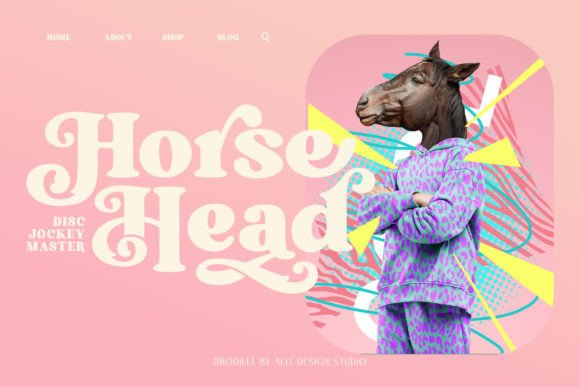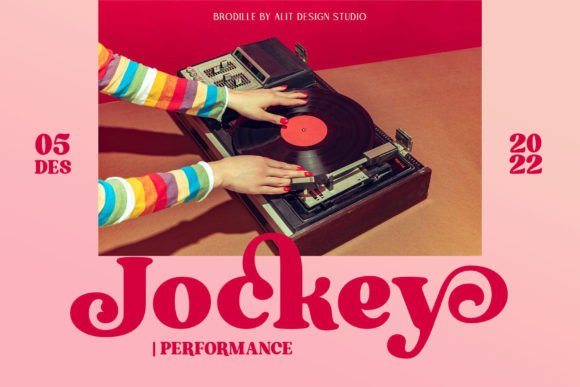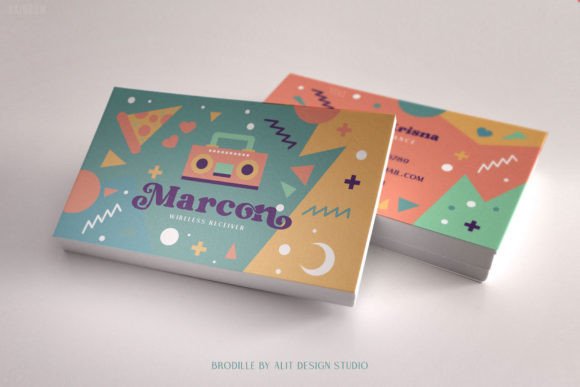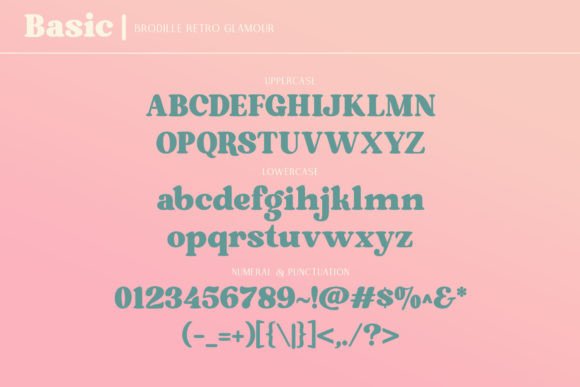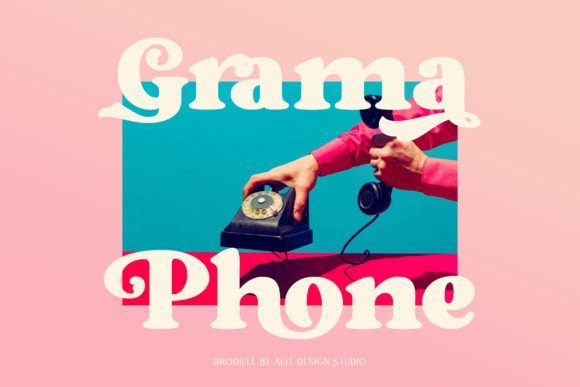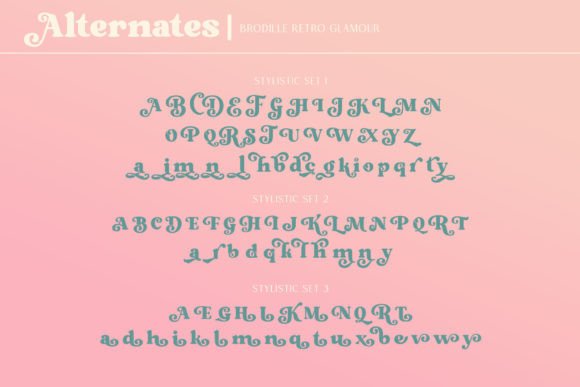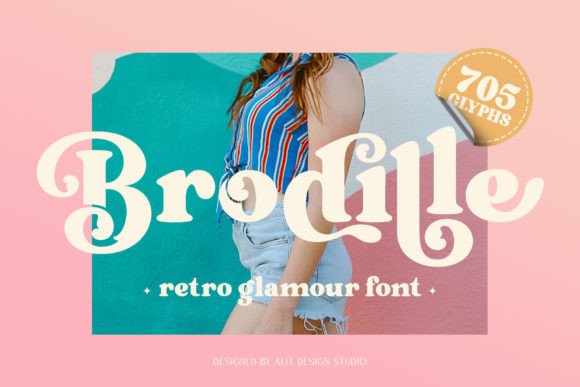
The Retro-Glam Brodille Font: A Designer’s New Best Friend
I still remember the design project that led me to discover the Brodille font. I was working on a branding project for a vintage-inspired boutique, and I was struggling to find the perfect font that would capture the essence of their retro-glam aesthetic. That’s when I stumbled upon Brodille, and it instantly became my go-to font for the project. In this article, I’ll share my experience with Brodille, its features, and how to make the most of it in your designs.
An Honest Review of Brodille
Brodille is a retro-glam display font that has won my heart with its stylish and trendy vibe. Here’s what I love about it:
- ✨ Incredibly stylish and trendy, with a special vintage-like appeal
- ✅ Highly legible, even at large sizes
- ✅ Extensive character set, including OpenType features and stylistic alternates
- ✅ Works beautifully for titles, headings, and short paragraphs
However, no font is perfect, and Brodille has a few quirks:
- 🤔 May not be the best choice for body text or long paragraphs, as it can be a bit too ornate
- ⚠️ Limited use of lowercase letters, which may not be ideal for certain design projects
The Story Behind Brodille
Brodille was designed by a team of typographers who wanted to create a font that would capture the essence of retro-glam. Inspired by vintage advertisements and fashion magazines, they crafted a font that’s both stylish and nostalgic. The name “Brodille” comes from the French word for “lace,” which reflects the font’s intricate and ornate details.
| Font Name | Brodille Font |
| Author | Alit Design |
| What is Brodille font? | Brodille is a retro-glam display font with a stylish and trendy vibe. |
| Is Brodille suitable for body text? | No, Brodille is best used for titles, headings, and short paragraphs. It’s not ideal for body text or long paragraphs. |
| Does Brodille support OpenType features? | Yes, Brodille supports OpenType features, including stylistic alternates and glyphs. |